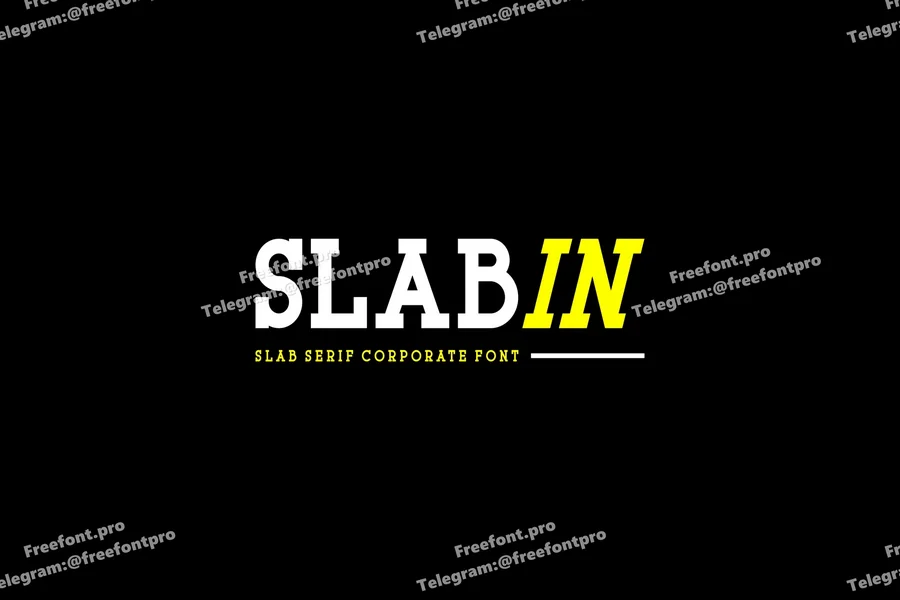
Slabin – Slab Serif Corporate Font
Introducing our new product Slabin Font – Modern Font
Slabin Font- Modern Font is a bold and authentic display font. The font is suitable for any branding project like logo, esport, and many more. outstanding in a wide range of contexts.